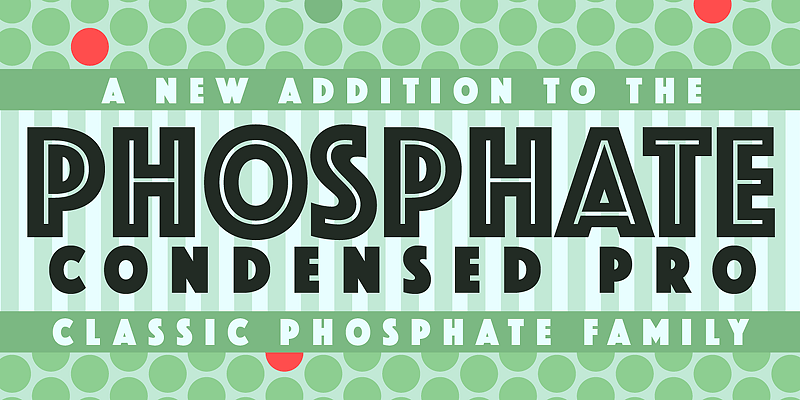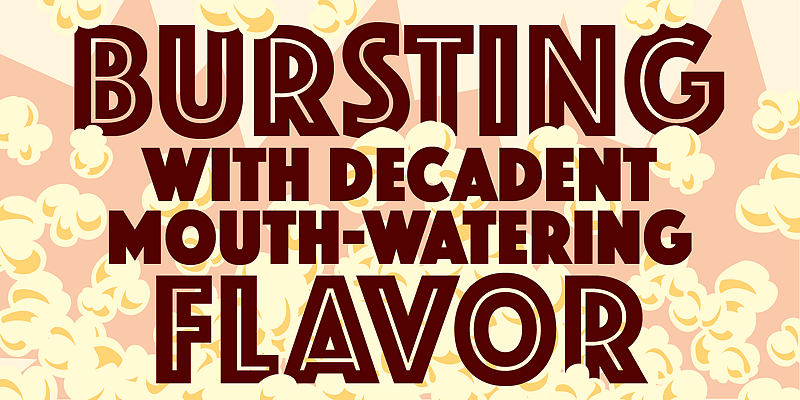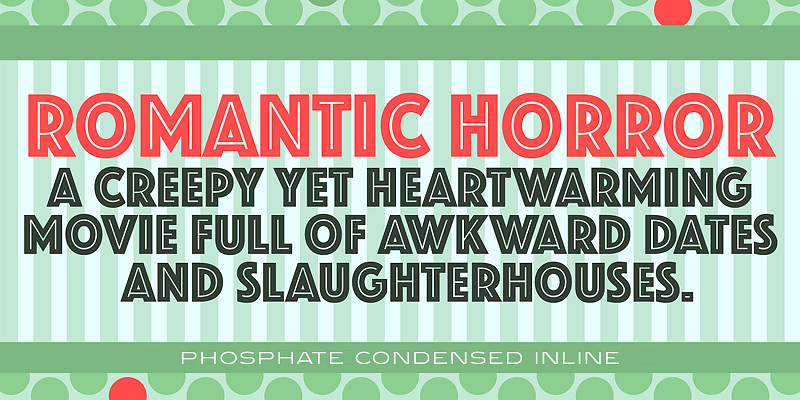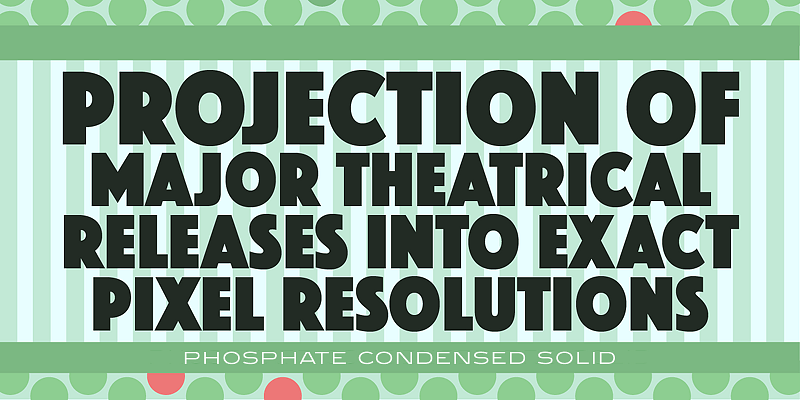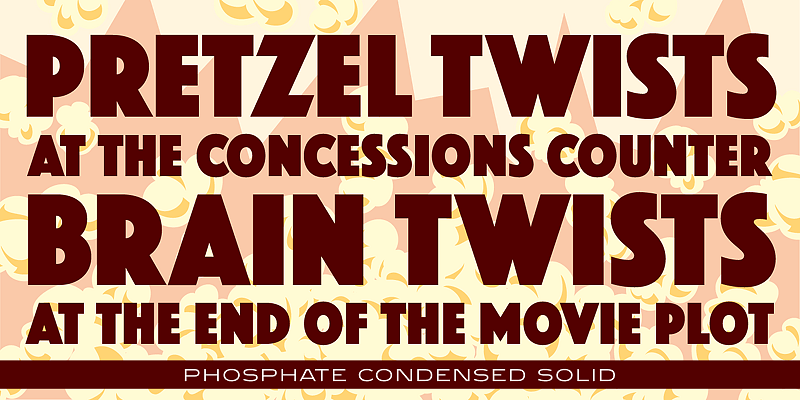
Phosphate Condensed is an all-caps sans serif font family with an inline weight. The original Phosphate was published by International TypeFounders, and the family was based on the ‘Phosphor’ typeface created by Jakob Erbar for Ludwig and Mayer, circa 1922–30. Phosphate has incredible presence, and its power shines in display format.